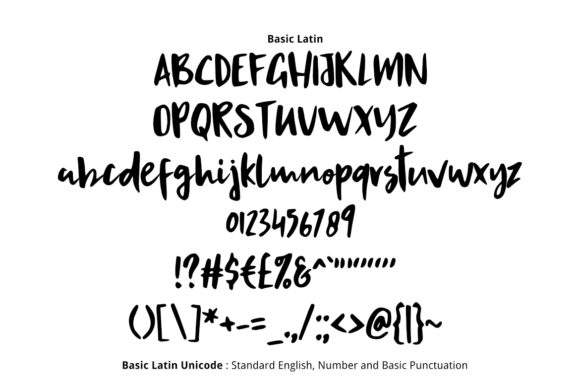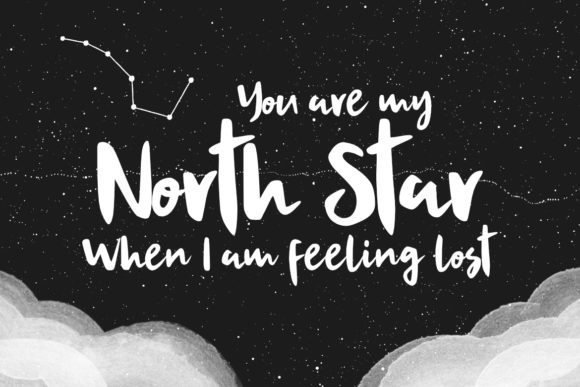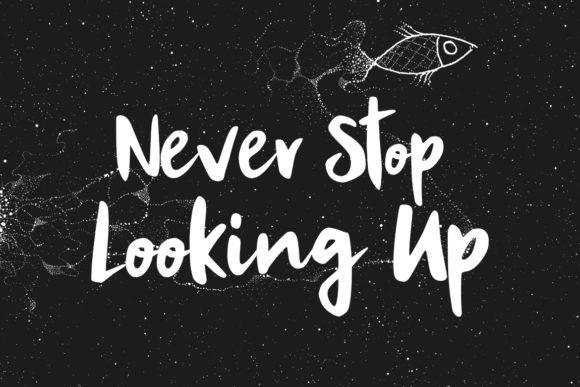
The Power of Hokuto Font
Remember that moment when you’re brainstorming a new project, and a single font choice can make or break the entire design? You’re scrolling through font libraries, and suddenly, something catches your eye – a raw, bold display font that screams confidence and style. For designers like you, finding that perfect font can be the game-changer you need to elevate your work.
Enter Hokuto Font, a raw and bold display font designed to deliver any message with conviction and panache. Whether you’re creating a bold headline or a striking logo, Hokuto Font is the perfect companion to help you make a lasting impression. Its strong aesthetic makes it an invaluable asset for designers looking to add some edge to their work.
Hokuto Font Key Features
- Unique Characteristics: Hokuto Font features a unique blend of traditional Japanese calligraphy and modern typography, making it ideal for use in a variety of applications, including graphic design, publishing, and advertising.
- Font Styles: Hokuto Font includes a range of font styles, including regular, bold, italic, and bold italic, allowing for a high degree of flexibility and customization.
Hokuto Font Review
Overall, I found the Hokuto font to be quite striking and visually appealing. ✨ The bold and dynamic lines give it a unique, edgy feel that’s perfect for modern designs. It’s also highly legible, making it suitable for a wide range of applications, from digital interfaces to print materials.
Here are some of the things I like about the Hokuto font:
- ✨ Unique and modern aesthetic
- ✨ Highly legible and clear
- ✨ Suitable for a wide range of applications
- ✨ Great for creating a bold and dynamic visual identity
- ⚠️ Limited font sizes and styles available (at the time of writing)
- ⚠️ May not be suitable for traditional or formal designs
- ⚠️ Some users may find it too edgy or overwhelming
Overall, I would recommend the Hokuto font for designers looking to add a modern and bold touch to their projects. While it may not be suitable for every design, it’s a great option for those who want to make a statement and create a unique visual identity.
Hokuto Font is a versatile font that can be used for various purposes, including:
- Typography for logos and branding materials.
- Creating eye-catching headlines and titles.
- Designing posters, flyers, and brochures.
- Adding a touch of Japanese flair to your designs.
For best results, use Hokuto Font in bold or italic styles to add emphasis and visual interest.